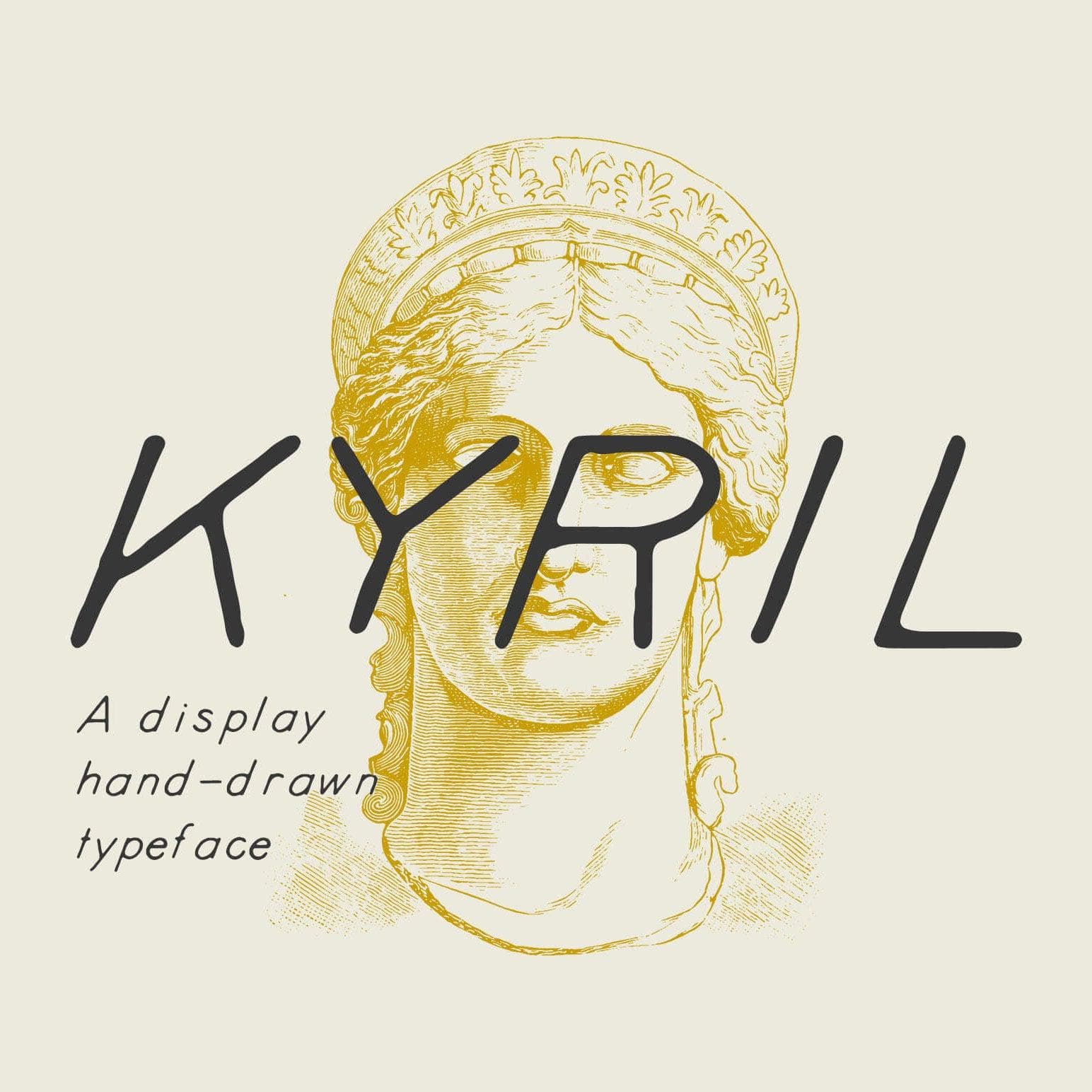
<p>*<em>Kyril *</em>with its hand-drawn appearance and unique character, this font is perfect for those who want to add a touch of ancient mythology and poetry to their work. The carefully crafted uppercases, lowercases, numbers, punctuation, and special characters for international language support allow for endless possibilities in design.<br>The inspiration for Kyril's name and design came from the ancient Greek gods and mythology, giving it a timeless and mystical quality. The name Kyril, meaning 'Master, Lord,' and 'Lyrik' spelled backwards, a reference to the form of poetry accompanied by the sound of Lyre, adds an extra layer of depth to this font.</p> <p><strong>Contents</strong></p> <ul> <li>Kyril.otf</li> <li>kyril.ttf</li> <li>kyril.woff</li> </ul>